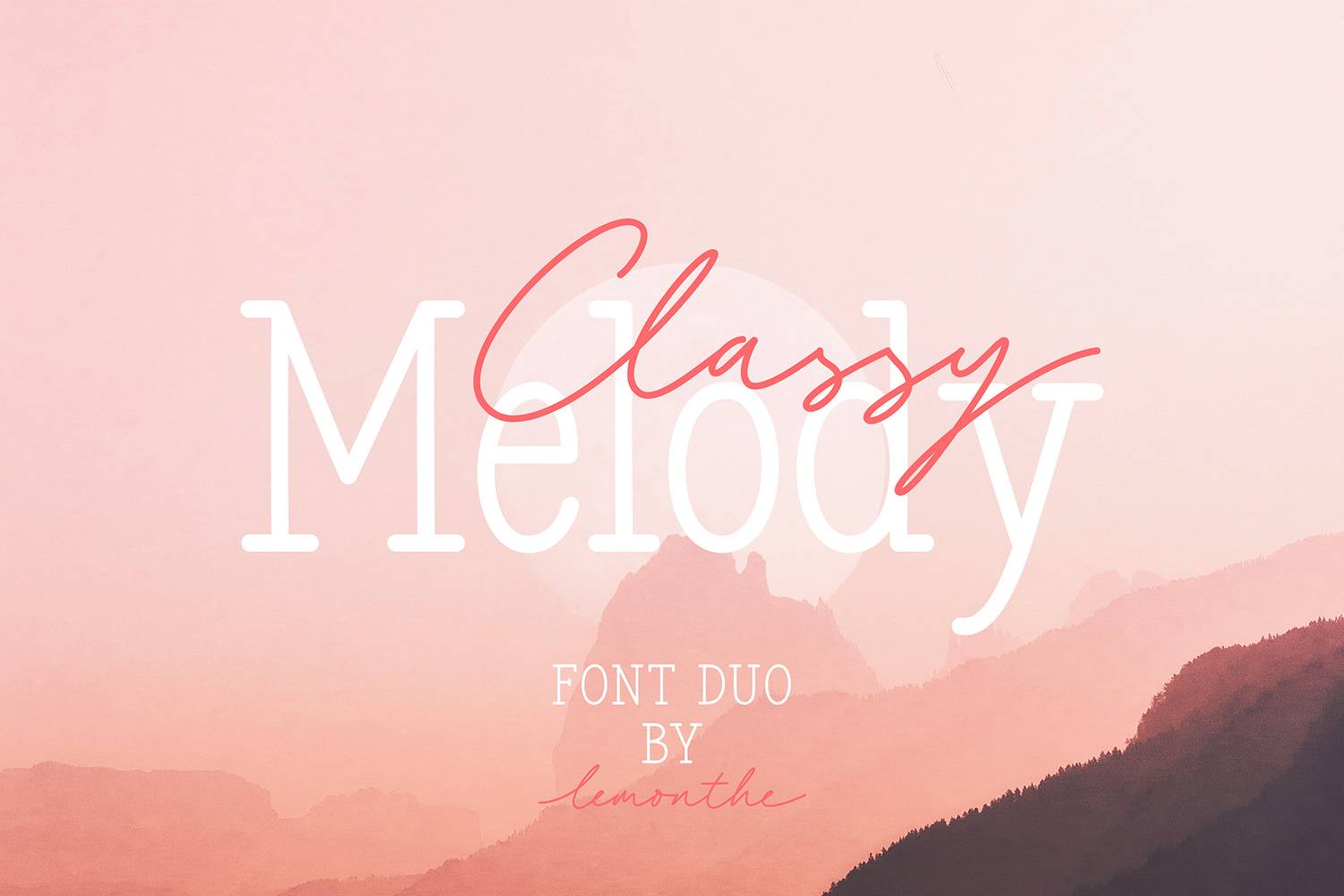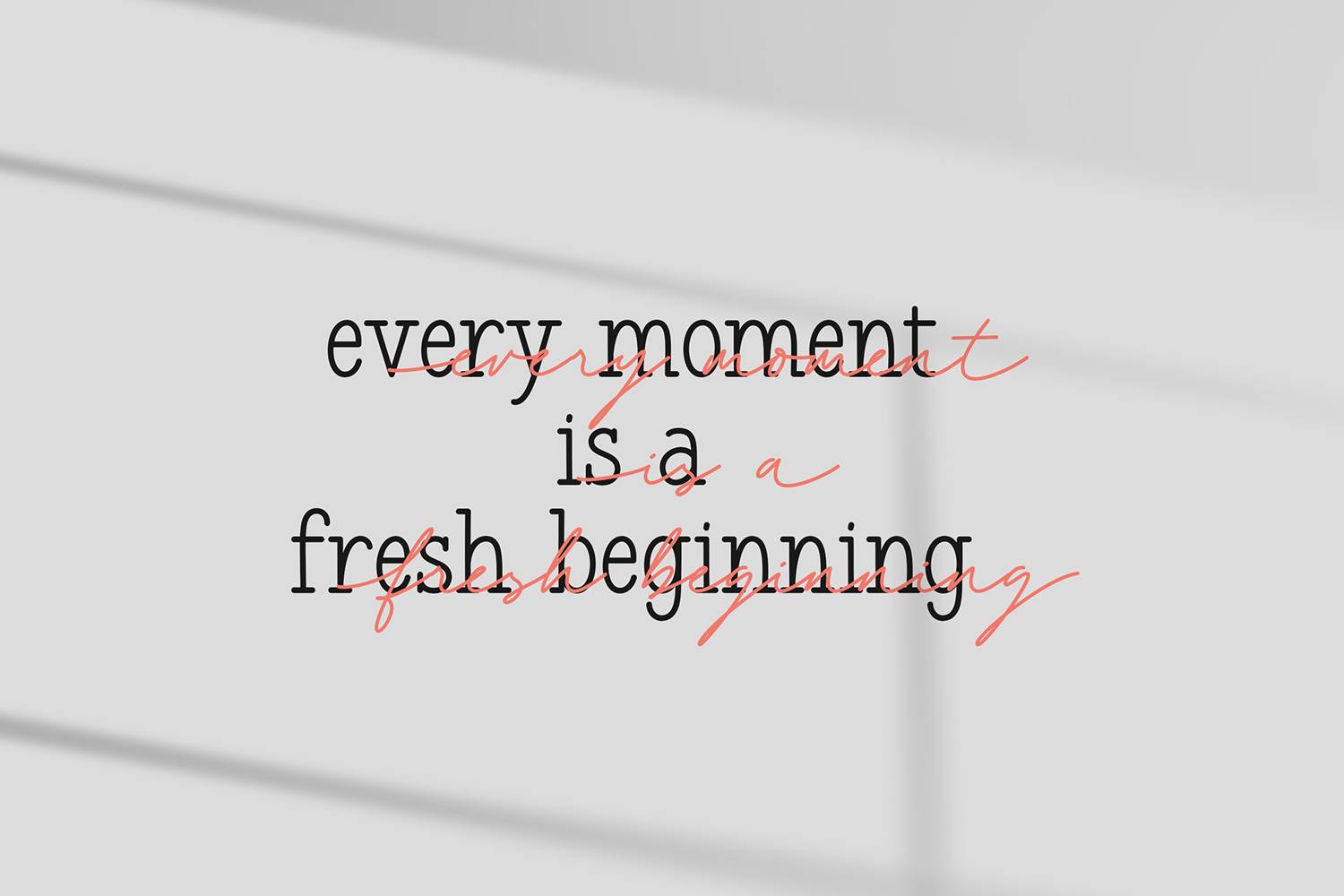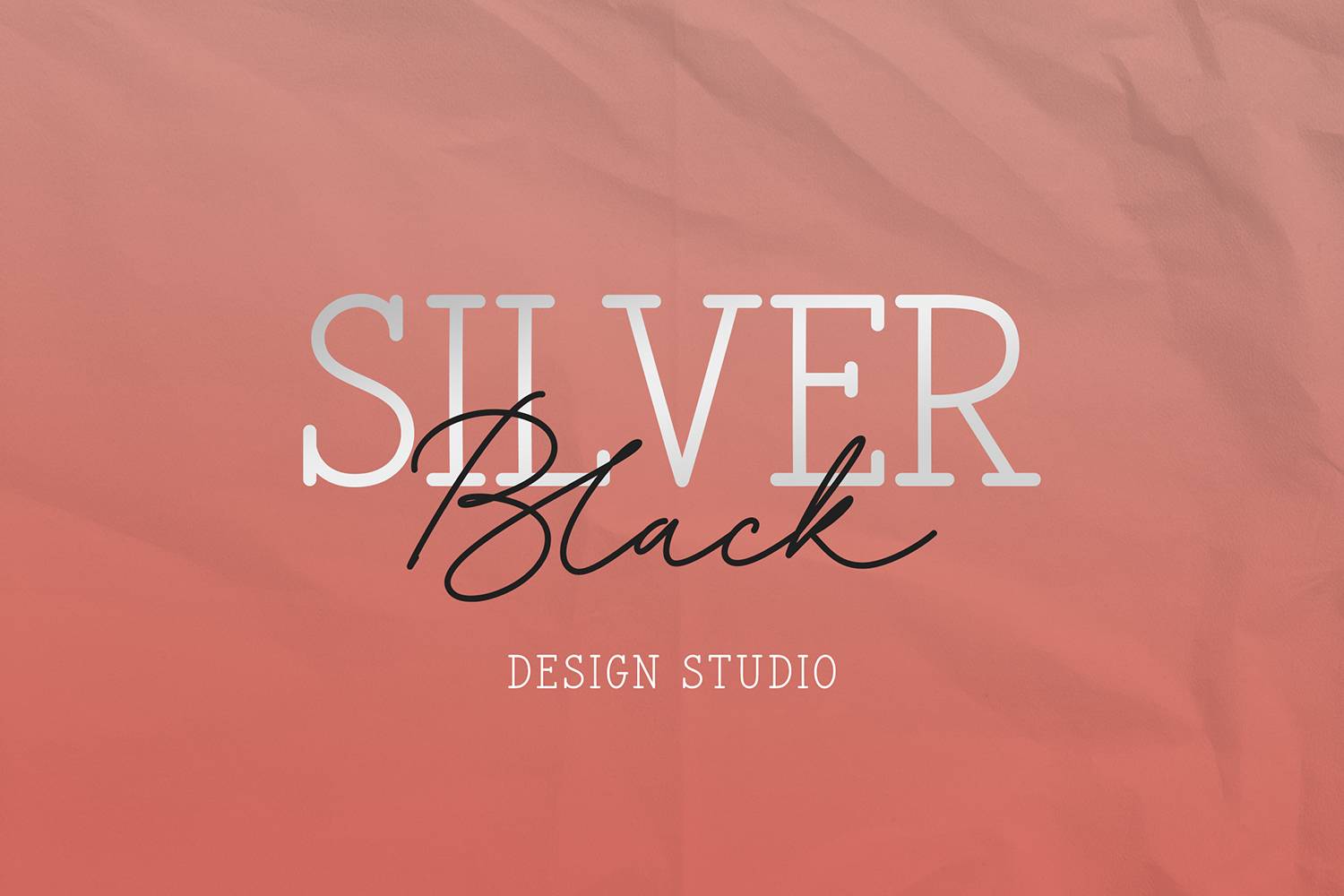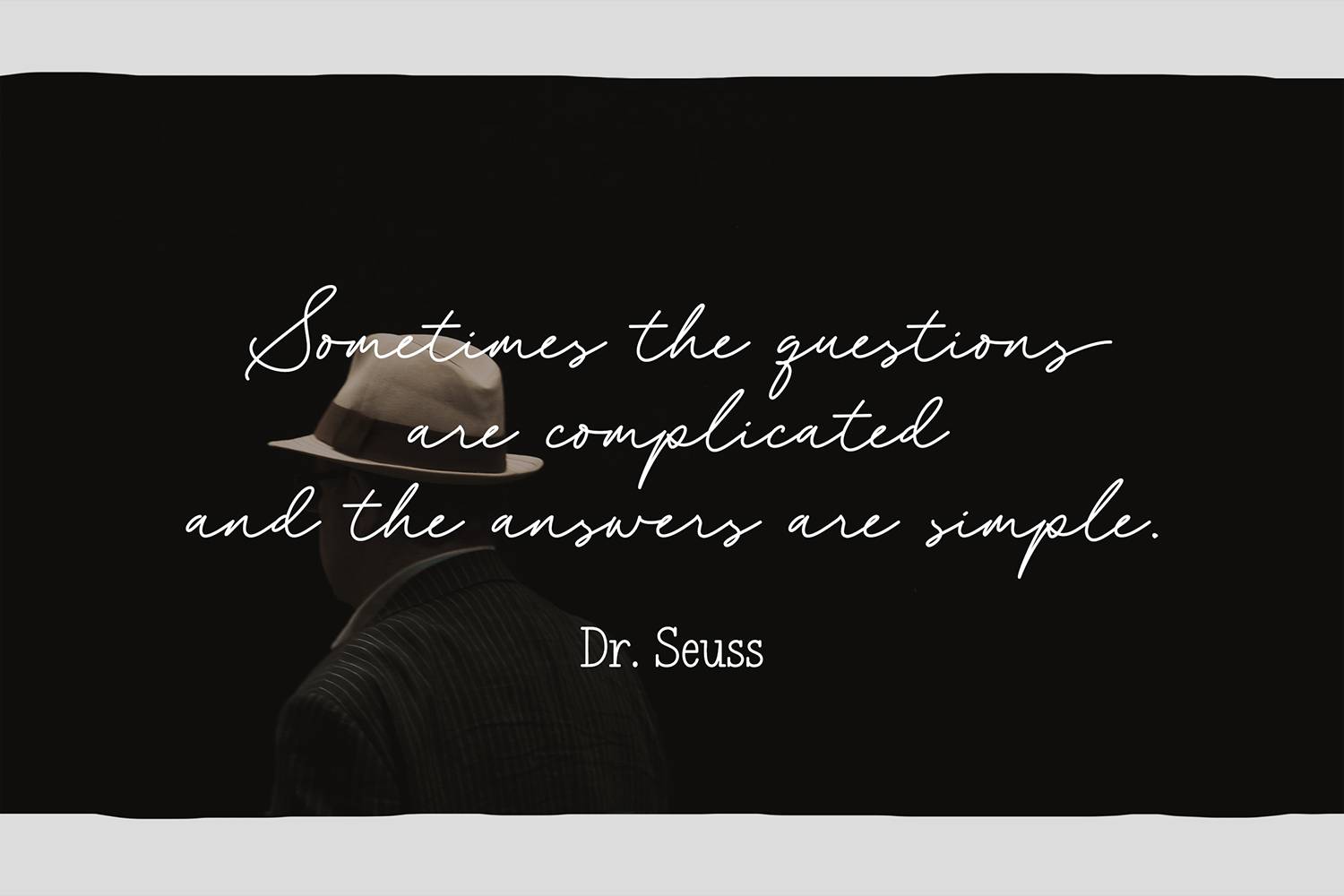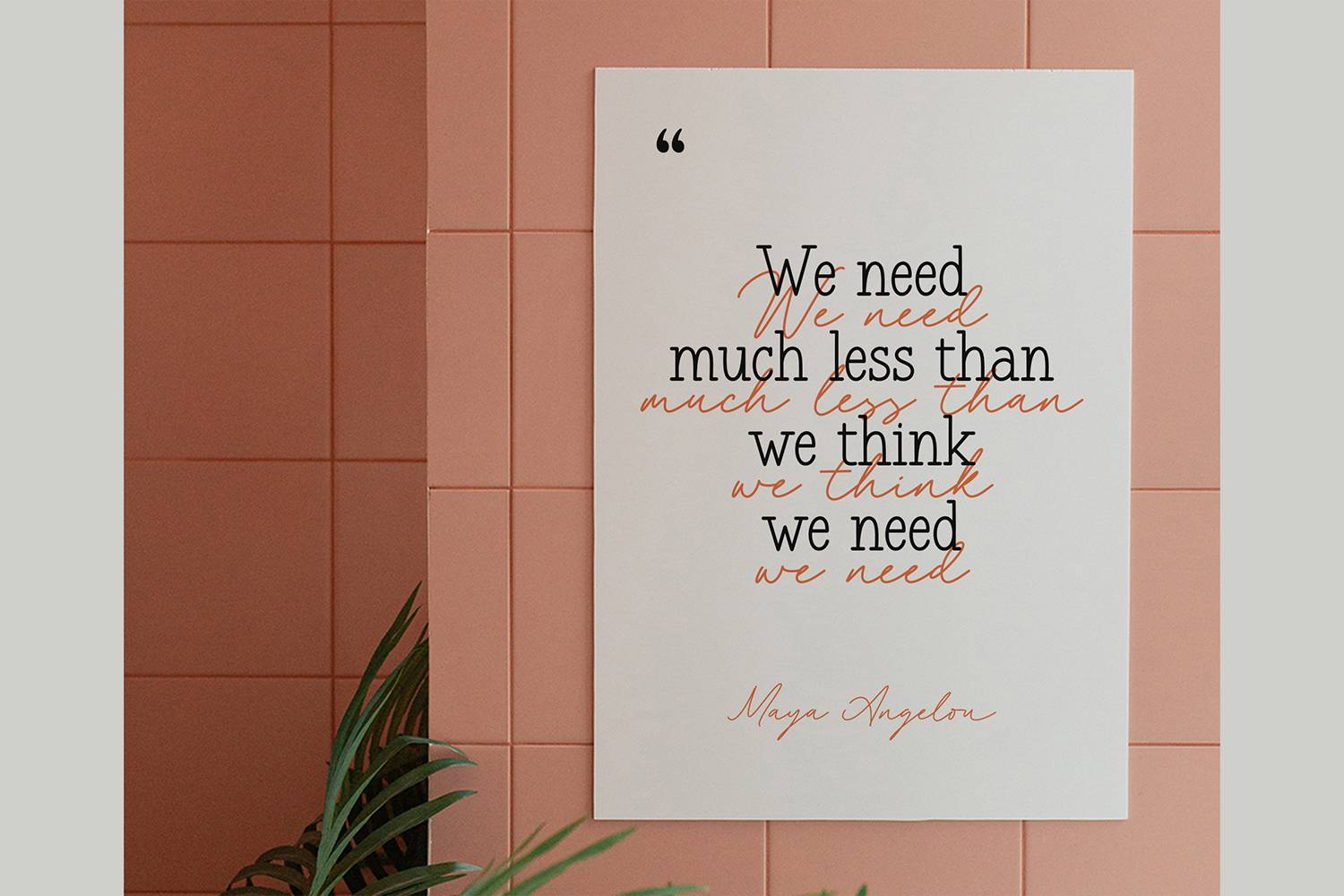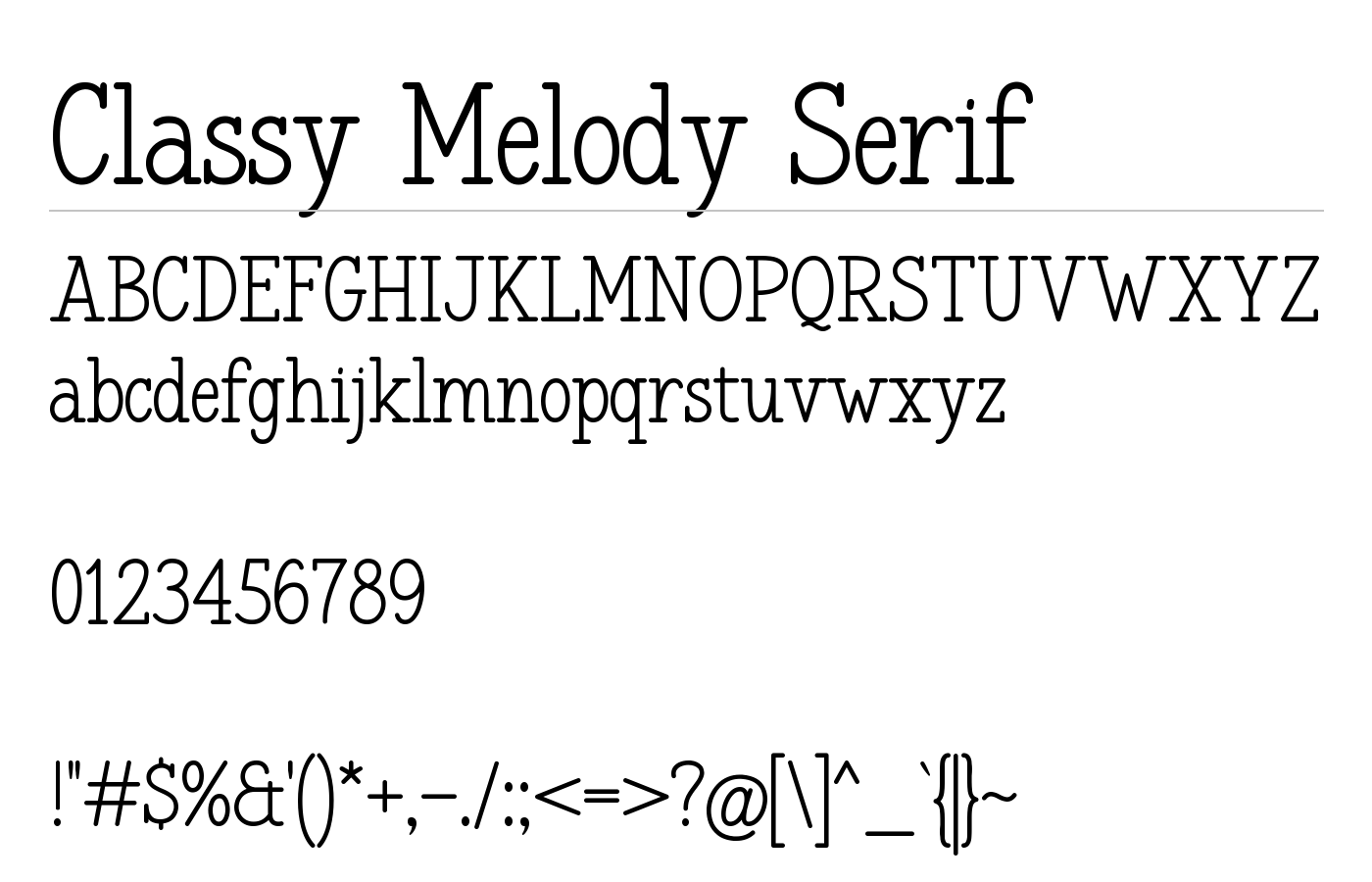
Classy Melody is a slender serif font with a vintage typewriter charm, featuring thin, slightly rounded serifs and a clean, airy feel. Its tall x-height and consistent stroke contrast give it excellent readability while maintaining a classic, refined personality perfect for editorial, branding, and creative projects that want to convey sophistication with a nostalgic touch. This font works well in headlines and body text where elegance and clarity are desired.
Classy Melody Font
About Classy Melody Font
| Font family | Classy Melody Font |
| Designer | Dwi Ahidian |